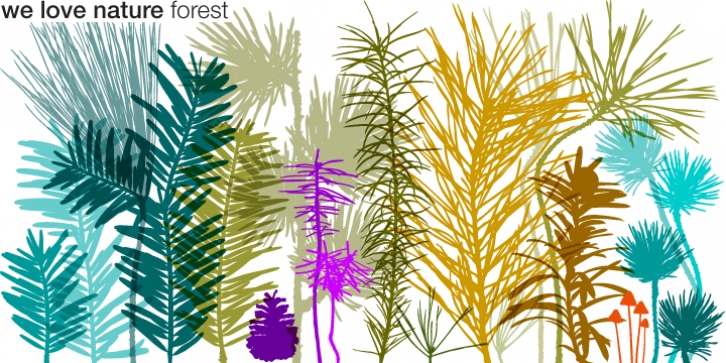
We Love Nature Forest was published by kapitza. We Love Nature Forest contains 1 style.
We Love Nature Forest is inspired by long walks in the woods and features decorative wintery pine needles, fir branches and cones.
Perfect for designing your seasonal cards. It consists of 52 highly detailed, hand drawn illustrations. The illustrations can be used on their own to create beautiful designs, or in combination with other illustrations in the We Love Nature font collection.